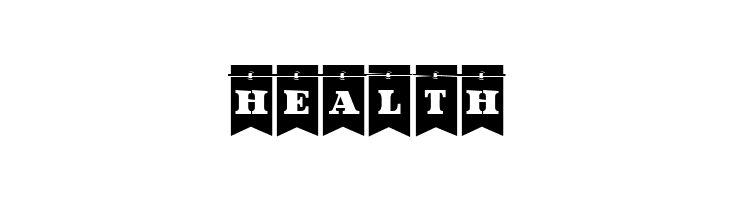
A bold, playful handwritten font with expressive strokes and a casual style.
A playful, casual handwritten font with irregular, organic strokes.
A playful, handwritten font with a casual, whimsical style.
A whimsical, decorative font with playful swirls and elegant flourishes.
A bold, pixelated font with a retro digital style.
A pixelated, retro-style font with a nostalgic digital display aesthetic.
A clean, rounded font with a primary school penmanship style.
A whimsical, curly font with a playful and decorative style.
A bold, grunge-inspired font with a distressed, edgy appearance.
A bold, angular font with geometric elements and a futuristic style.
A playful and whimsical font with unique decorative elements.
A bold, hand-drawn font with a rugged and artistic style.
A playful, distressed font with a hand-drawn, chalkboard style.
A bold, inkblot-inspired font with dramatic and artistic flair.
A bold, classic serif typeface with strong, authoritative strokes.
A bold, high-contrast serif font with a modern yet classic style.
A bold, modern sans-serif font with geometric shapes and consistent stroke widths.
A playful, handwritten-style font with a whimsical and friendly appearance.
A bold, distressed font with a vintage, grunge aesthetic.
A traditional Gothic font with intricate, angular letterforms and pronounced serifs.